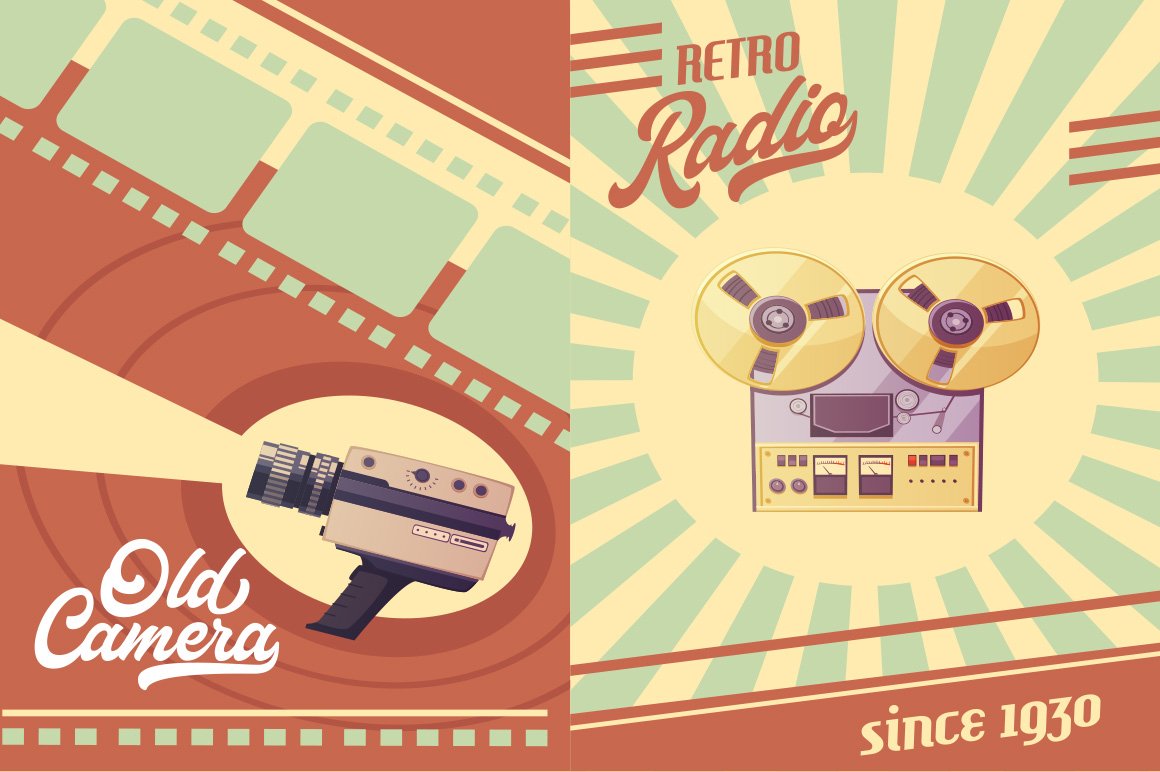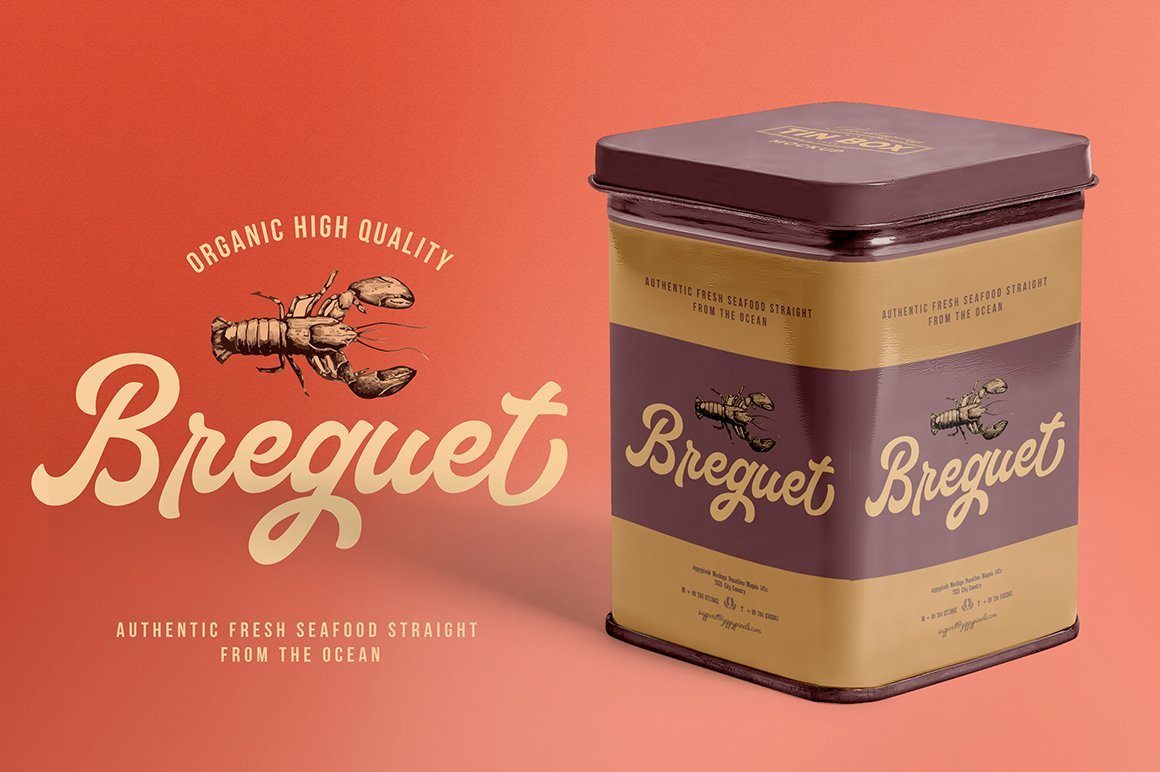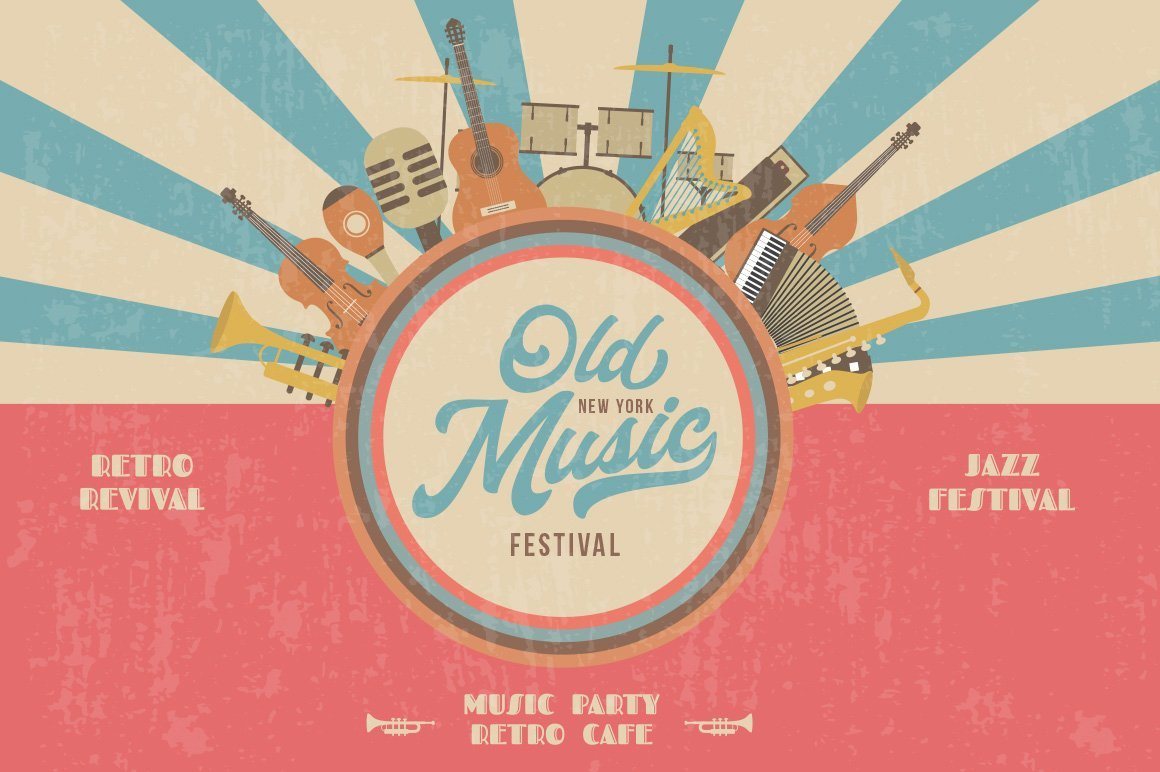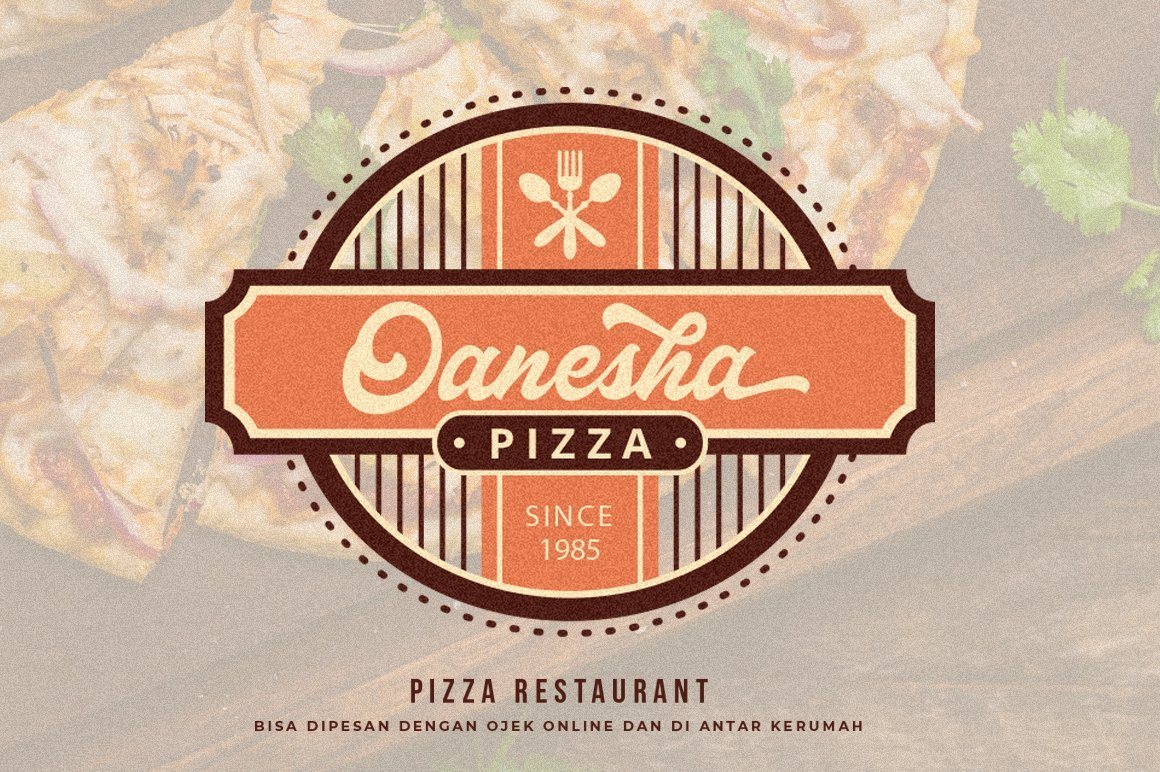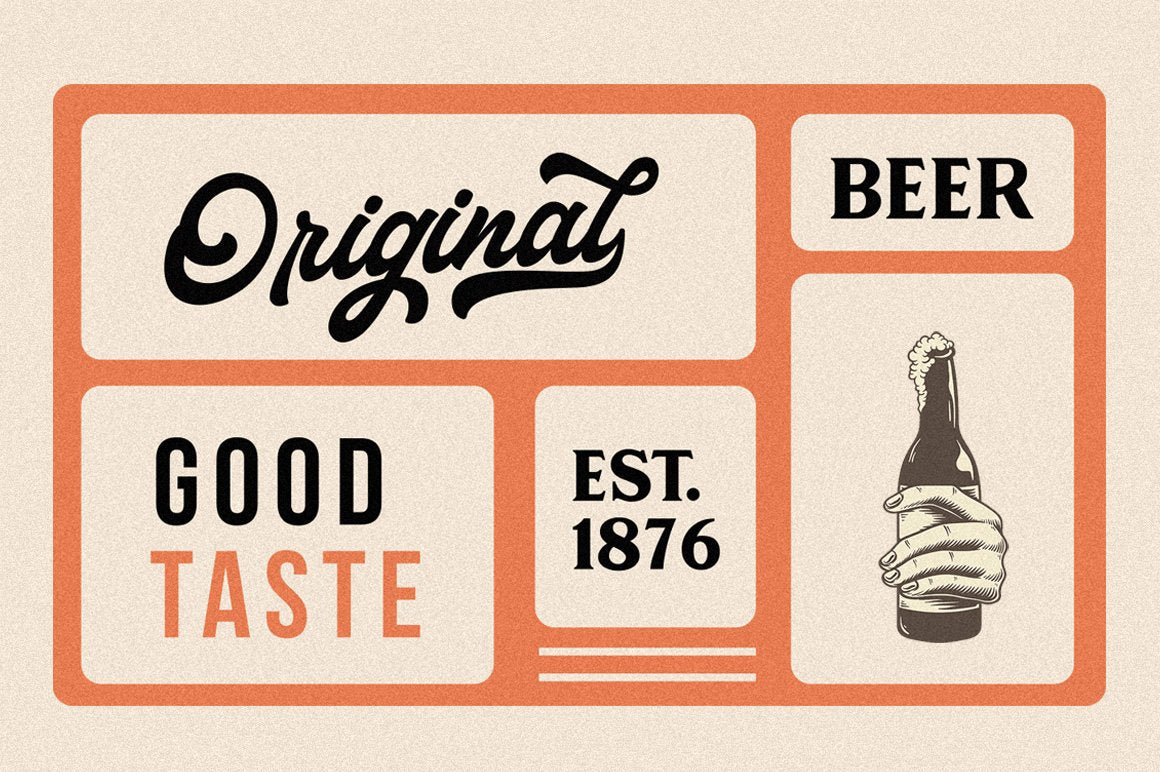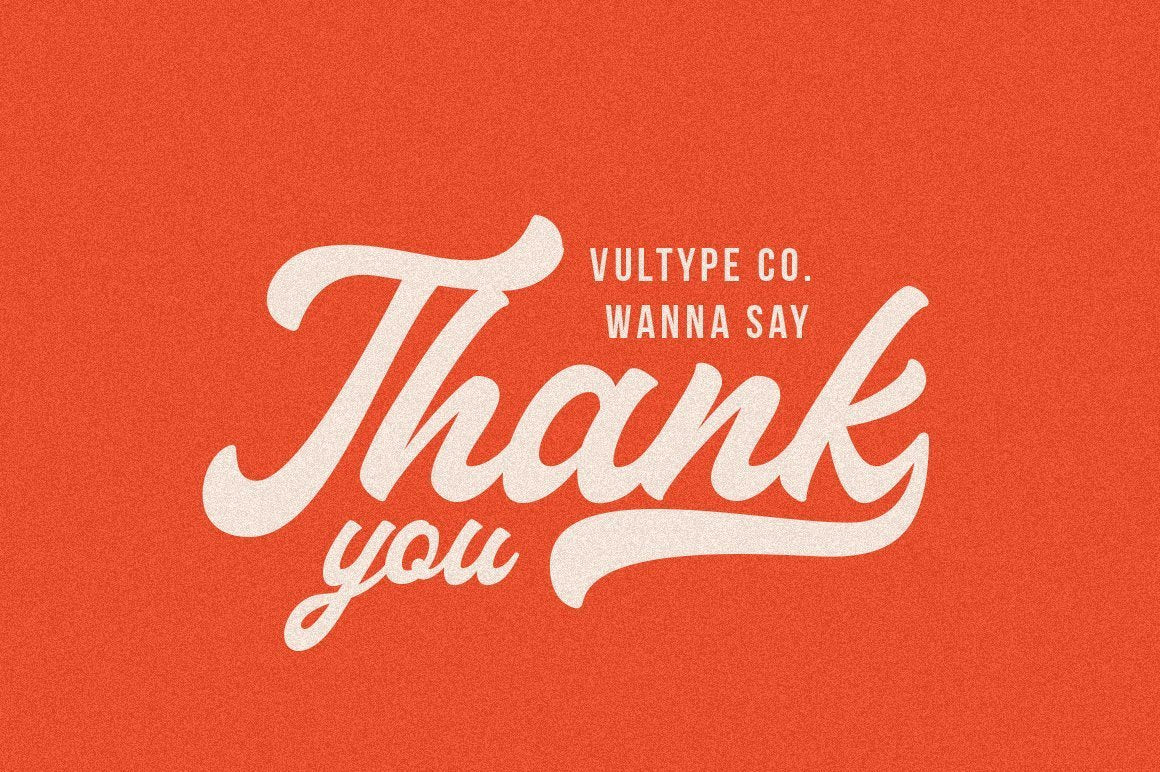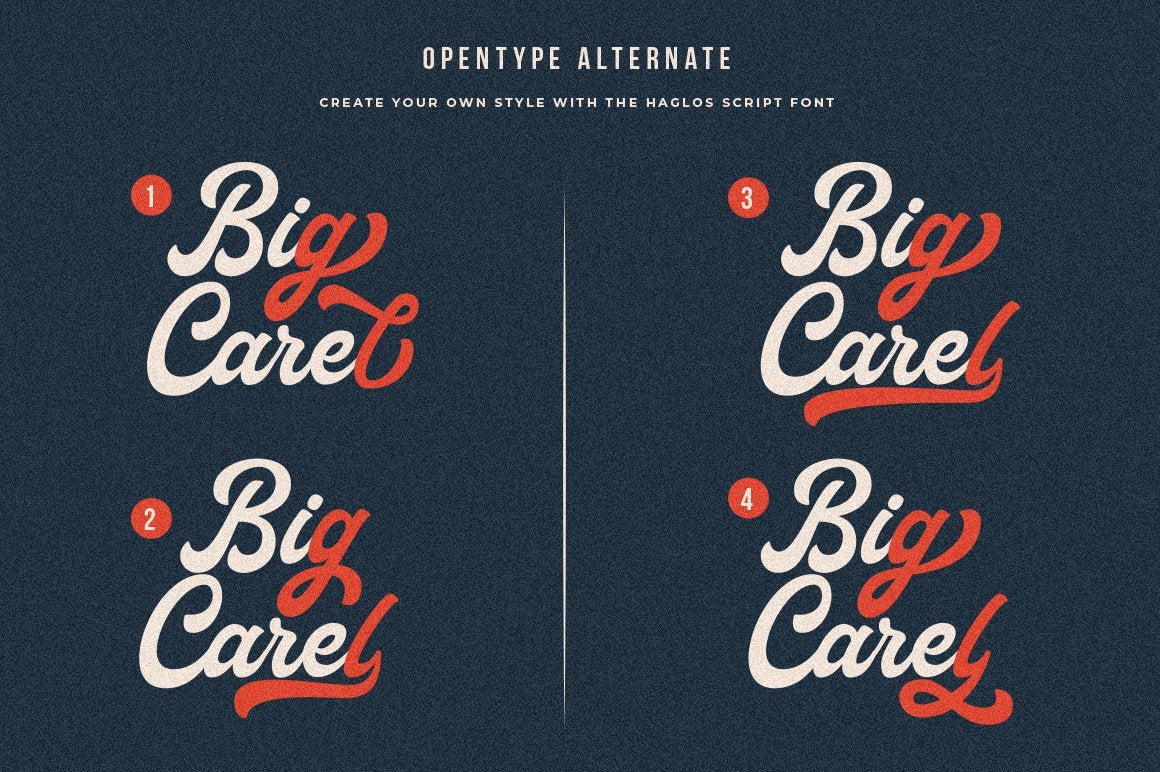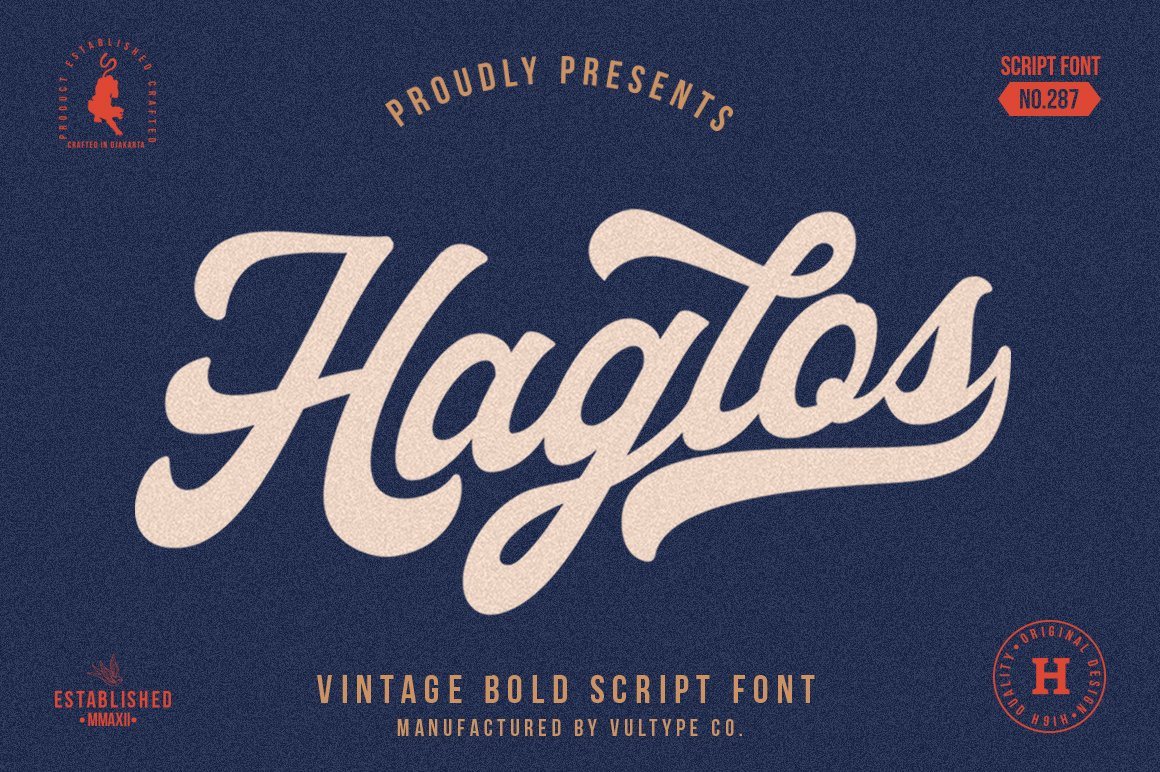
About Haglos – Bold Script Font
Haglos Script Inspired by Modern Vintage & Retro style and combination with old american traditional style. Haglos Script allowing you to create hand lettering is an instant and a super handy set of bonus Swash. Ideal for logos, handwritten quotes, product packaging, header, poster, merchandise, social media & greeting cards. Files Include : Haglos OTF Haglos TTF Haglos WOFF Help file Features Basic Latin A-Z and a-z Numbers Symbols Stylistic Set Ligature PUA Encode Multilanguage Support To enable the OpenType Stylistic alternates, you need a program that supports OpenType features such as Adobe Illustrator CS, Adobe Indesign & CorelDraw X6-X7. There are additional ways to access alternates, using Character Map (Windows), Nexus Font (Windows), Font Book (Mac) or a software program such as PopChar (for Windows and Mac). Thanks ! Candra ~ Vultype